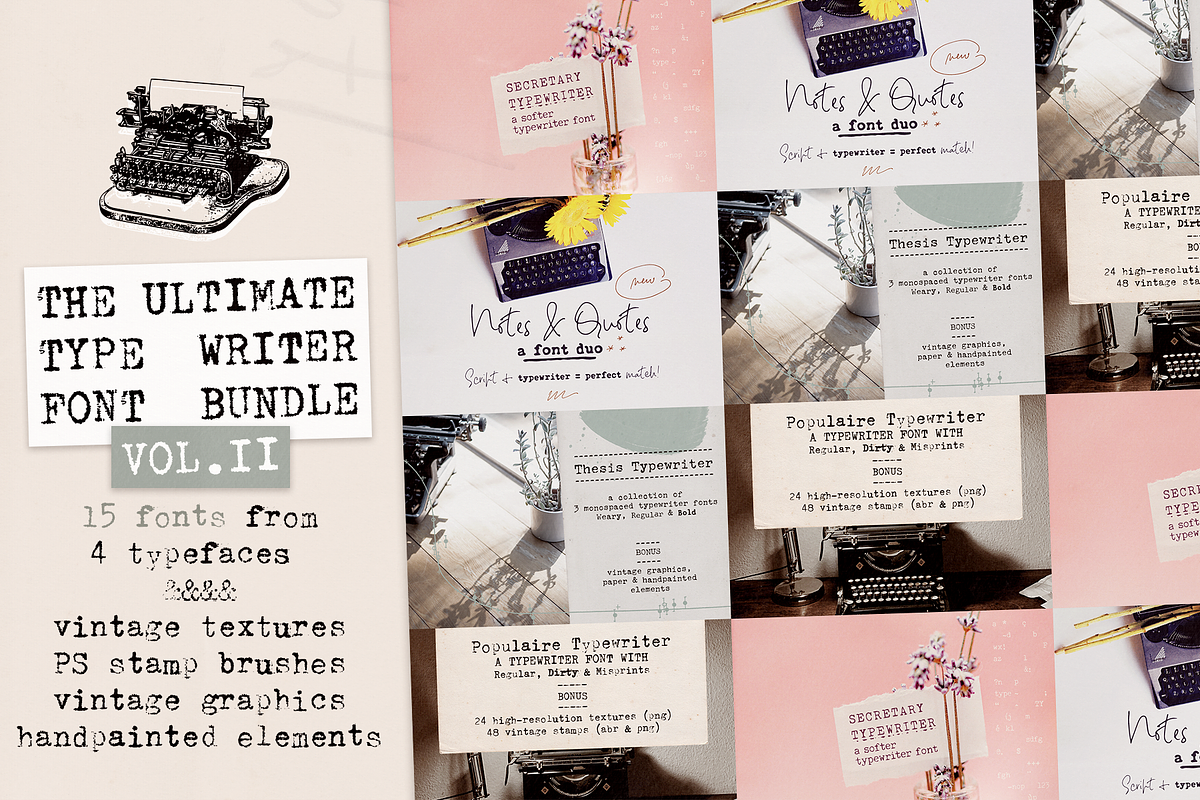
Typewriter Font Bundle Vol. 2 Free Download
Please note, to use these fonts for commercial purposes, you must purchase the full version. The Typewriter Font Bundle Vol. 2 offers an extensive collection of vintage typewriter-inspired fonts, perfect for adding a nostalgic, classic feel to your designs. This bundle includes a variety of styles from distressed to clean, giving you the flexibility to create logos, branding, posters, invitations, and more. Whether you're designing for a retro brand, a creative project, or a vintage-themed event, the Typewriter Font Bundle Vol. 2 brings character and timeless charm to your work. Test it out and enjoy free download access for personal use. Explore the full potential of Typewriter Font Bundle Vol. 2 Free Download before purchasing the commercial license. Add a retro, typewriter-inspired touch to your designs with this fantastic font bundle.